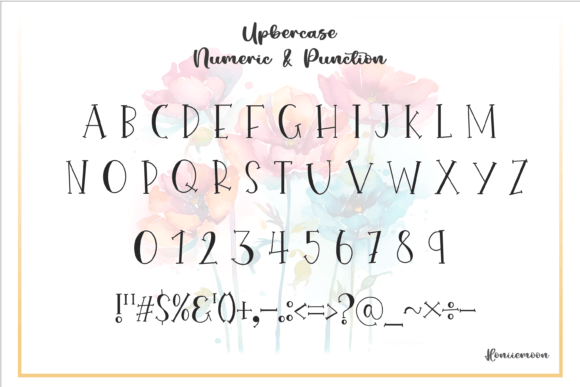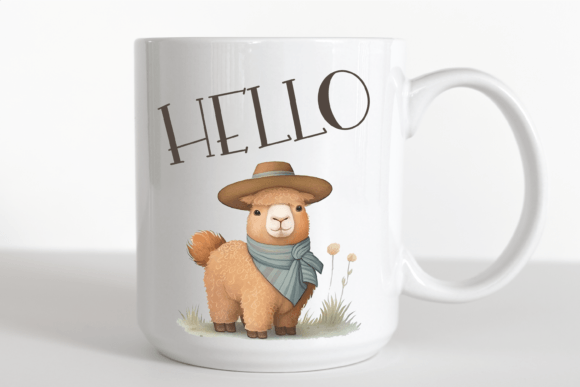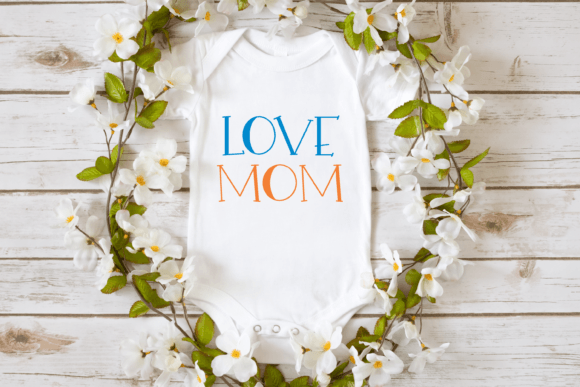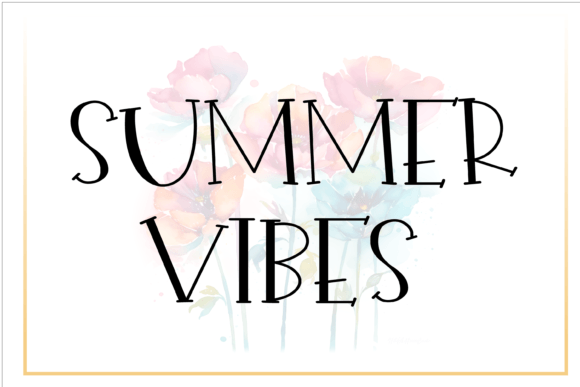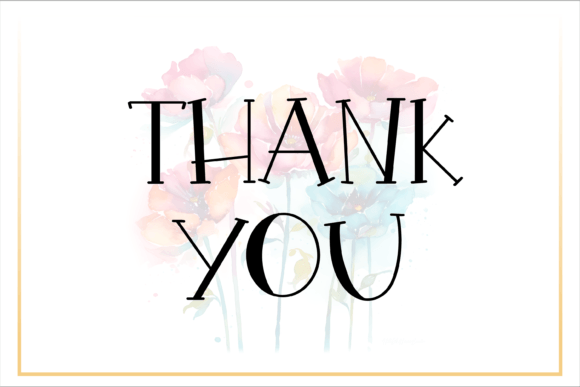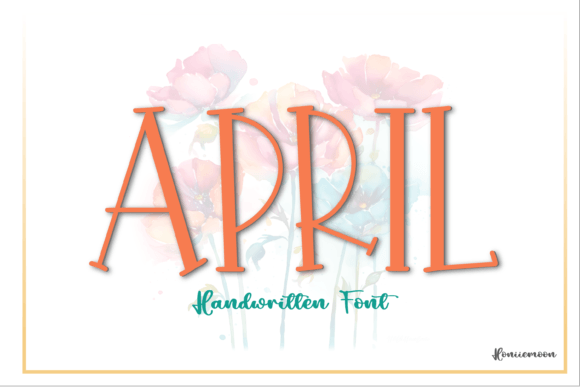
Discover the Delightful April Font: A Designer’s New Best Friend
I’ll never forget the time I was working on a whimsical craft project for a client who wanted a playful, hand-drawn feel. I had a clear vision of what I wanted to create, but there was one major roadblock: finding the perfect font. I scoured the internet, tried out countless fonts, but nothing seemed quite right. That was until I stumbled upon the April Font – a cool and fun handwritten font that instantly brought my design to life!
A Personal Review: What I Love About April Font
So, what makes April Font so special? Here are a few things that I absolutely adore:
- ✨ It’s incredibly versatile and can be used for a wide range of design projects, from crafting and scrapbooking to branding and advertising.
- ✅ The font has a consistent and legible feel, making it perfect for both headings and body text.
- 😊 It has a playful and jolly vibe that’s sure to add a touch of personality to any design.
While April Font is an amazing addition to any design project, there are a few minor quirks to be aware of:
- 🤔 Some users may find that the font can be a bit overwhelming when used in large blocks of text.
- ⚠️ As with any handwritten font, there may be some variation in the letterforms, which can affect consistency.
The Story Behind April Font
While the true origins of April Font are unknown, it’s clear that it was designed with creativity and playfulness in mind. Imagine a designer, sitting at their desk, surrounded by colorful markers and scraps of paper, trying to capture the essence of a carefree spring morning. That’s the feeling that April Font embodies – a sense of joy and spontaneity that’s sure to bring a smile to your face.
| Author | Honiiemoon |
| Is April Font suitable for body text? | While April Font is beautiful, it may not be the best choice for large blocks of body text. It’s better suited for headings, titles, and short paragraphs. |